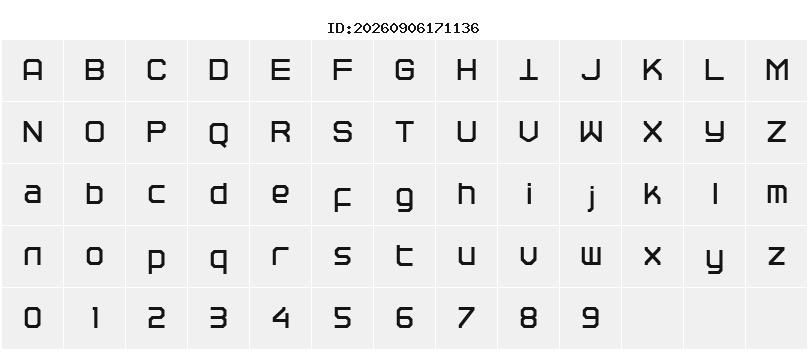
• Font Name: TRACEROUTE
• Full Font Name: TRACEROUTE
• Version: VERSION 1.0; 2000; PRESSURE TYPE FOUNDRY
• Designer: yol
• Description: make fonts - not cake
About TRACEROUTE.ttf
TRACEROUTE.ttf is a modern, elegant sans-serif font designed for ultimate readability and visual harmony. Perfect for branding, headlines, web design, and print materials.